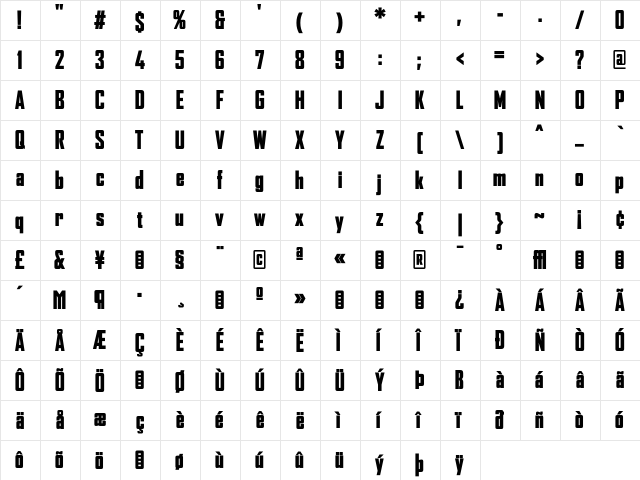
AgencyFB BlackCondensed
Design Context for AgencyFB Typeface
AgencyFB is a composed and adaptable typeface that performs quietly and consistently across a wide range of design contexts. Its narrow stance lets it pack a punch even in space-constrained designs.